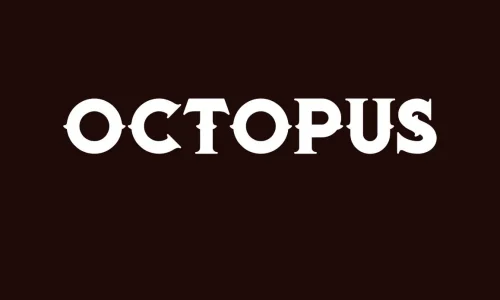
Today, we are going to introduce a very classic font family that is known by the name Bullet Rain Font. This stylish typeface was designed by Chequered Ink. It belongs to the display font family.
The best thing about this family is that it supports both Latin and Cyrillic languages.
This fabulous font family has a total of 12 styles. It is also an amazing facility for you that use billboard font which is similar to this typeface.